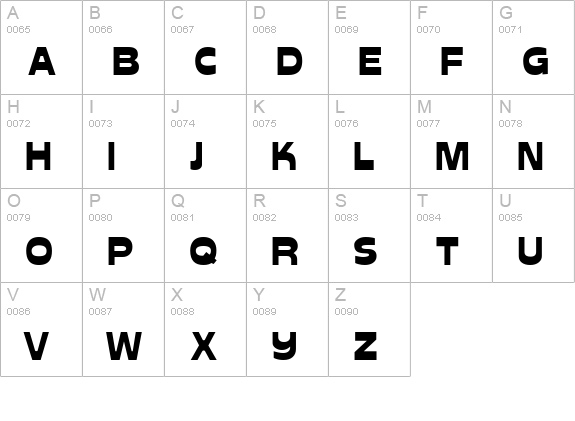
Cuckoo Regular is the standard, neutral variant in the Cuckoo typeface family \xE2\x80\x94 well suited to general body text, paragraphs, and standard typographic work.
Cuckoo Regular font is a charming and whimsical typeface that exudes a playful and friendly vibe. With its rounded edges and quirky details, this font is perfect for adding a touch of personality to your designs. Whether you're working on a fun project or looking to inject some creativity into your work, Cuckoo Regular is sure to make a statement. Best of all, this delightful font is available for free download at FontsMarket.com. Simply head over to the website to grab your copy and start incorporating Cuckoo Regular into your designs today. Let your imagination run wild with this versatile and eye-catching font that is sure to bring a smile to everyone who sees it.